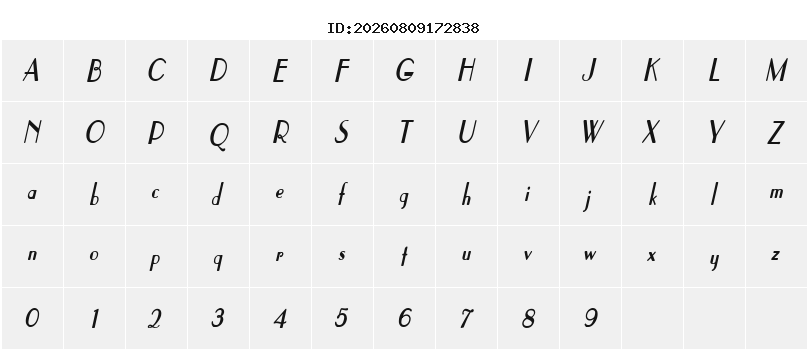
Paris Condensed Preview
About Paris Condensed.ttf
Paris Condensed.ttf is a modern, elegant sans-serif font designed for ultimate readability and visual harmony. Perfect for branding, headlines, web design, and print materials.